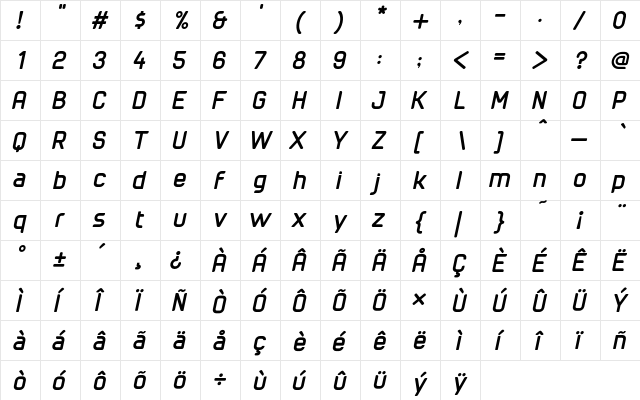
cuyabra bold oblique
| Foundry | N鳴or Jairo Delgado Giraldo |
| Designer | N鳴or Jairo Delgado Giraldo |
Design Context for cuyabra Typeface
cuyabra takes a measured approach to typography — its balanced proportions and neutral character make it a reliable workhorse for both digital and print work. The slanted form adds forward momentum and visual energy. Its bold stroke weight gives it real presence on the page.
Pro Tip: Try cuyabra for annotation and caption copy alongside an upright companion — the contrast in angle creates a dynamic but ordered typographic system.